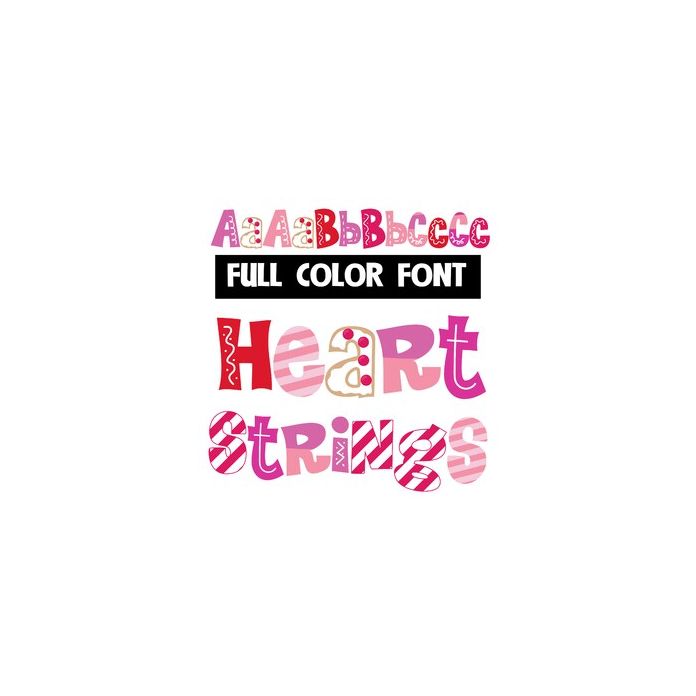
This full-color font features a mix of styles, stripes, and Valentine colors for a whimsical look and feel. There is an alt upper and lowercase with additional colors that you can access through Silhouette's glyph map.